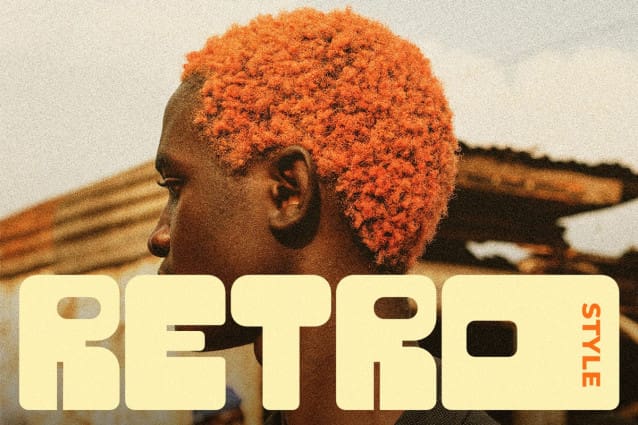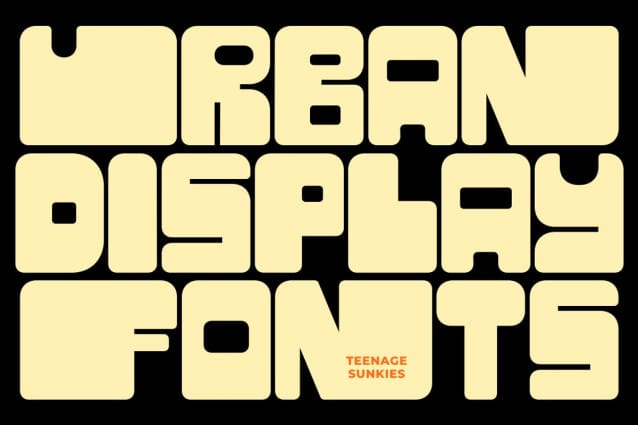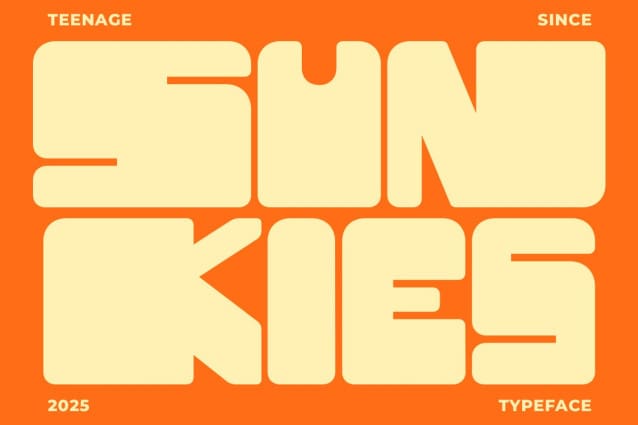
Teenage Sunkies Font
Teenage Sunkies Font is a unique display font that features wide uppercase letters and regular lowercase letters. This font is well-suited for designs such as posters, logos, and similar applications.
By combining the wide uppercase and regular lowercase characters, designers can create eye-catching and balanced typography for their projects.